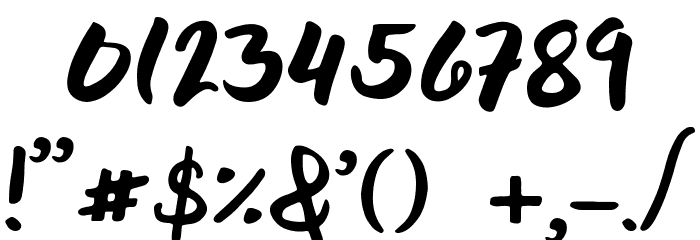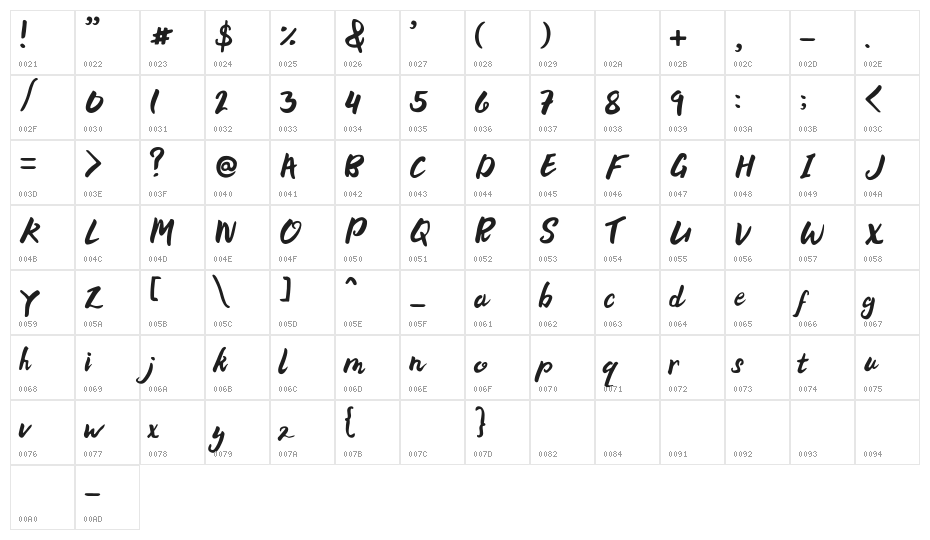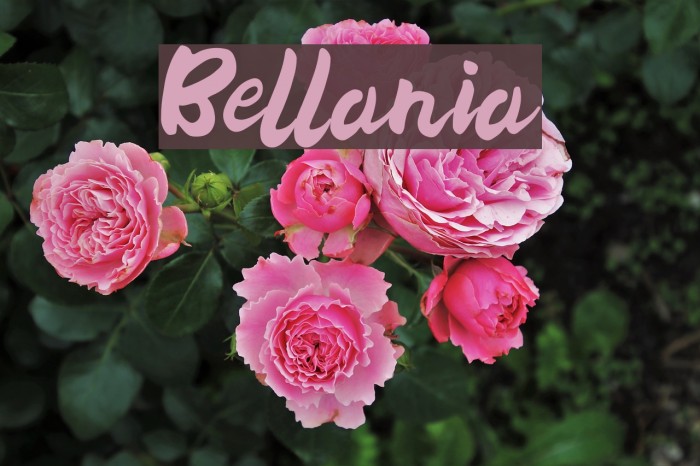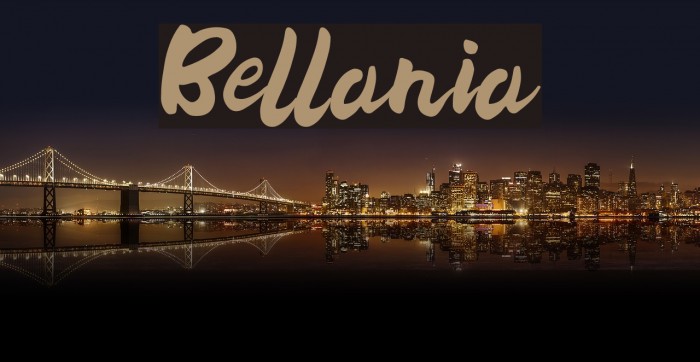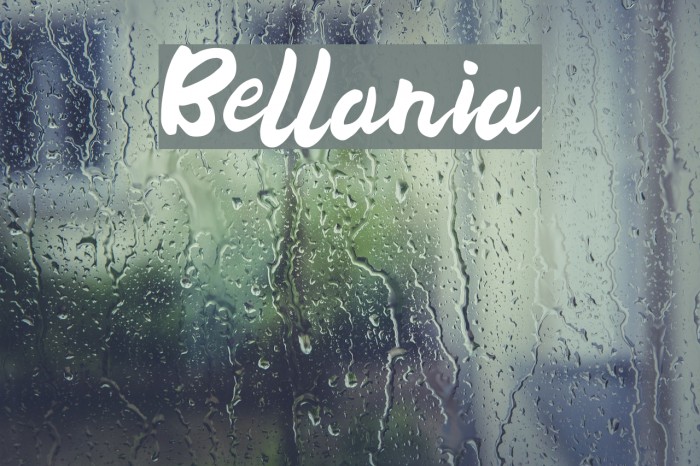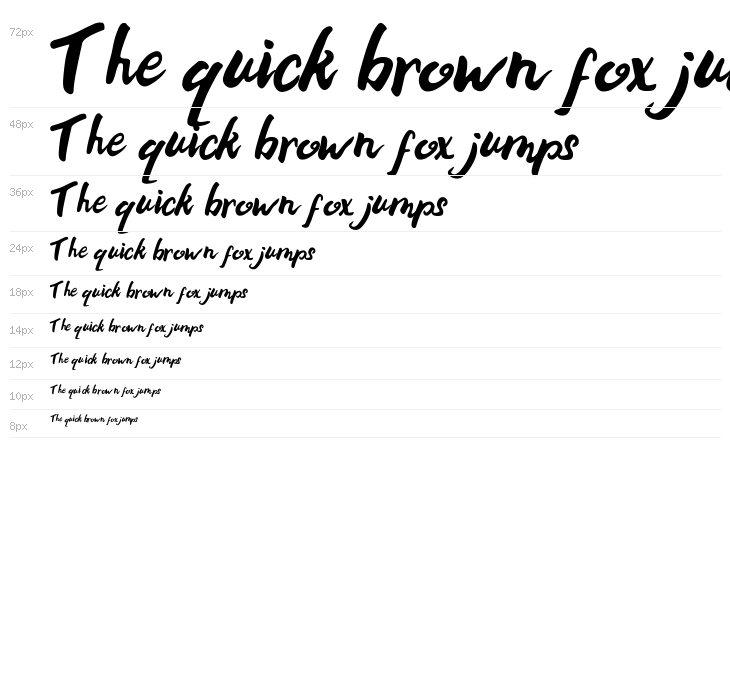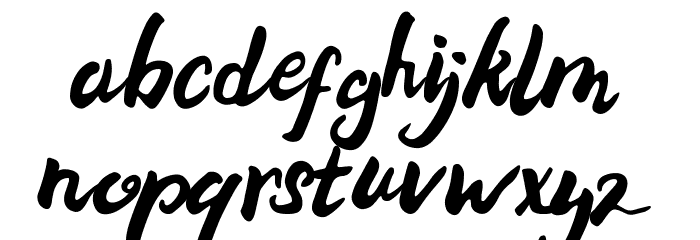
Bellania Font
Bellania Description
This font features a bold and expressive script style with a handwritten appearance. The letters are connected in a fluid manner, giving it a dynamic and lively feel. The uppercase characters are slightly more formal, while the lowercase letters maintain a casual and approachable look. The numbers are consistent with the overall style, offering a playful yet readable form. Special characters are integrated seamlessly, maintaining the font's cohesive aesthetic. This font's bold strokes and smooth curves make it stand out, ideal for creative and artistic projects.
Use CaseLogos, Headlines, Invitations
Proposed ProjectsPerfect for invitations, greeting cards, branding, and social media graphics.